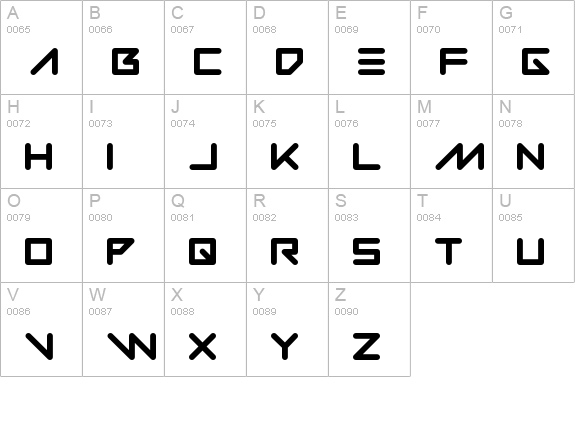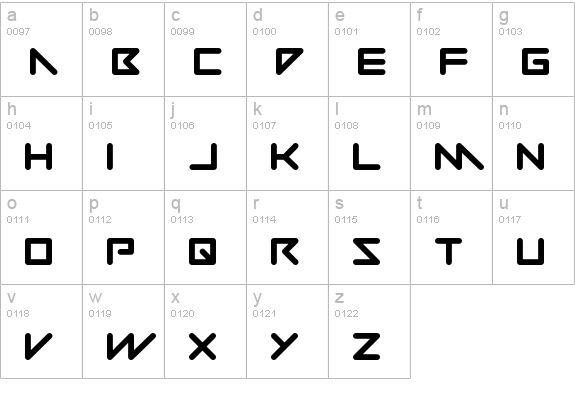
Vermin Vision Font Details
Vermin Vision font is a unique and edgy typeface that captures the essence of urban grit and underground artistry. With its sharp angles and bold letterforms, this font exudes a sense of raw energy and rebellious spirit. Whether you're creating posters, album covers, or social media graphics, Vermin Vision will make your designs stand out from the crowd. What makes Vermin Vision even more appealing is that it is completely free to download at FontsMarket.com. This means you can unleash your creativity without any constraints or limitations. So go ahead, download Vermin Vision today and add a touch of urban cool to your next project.